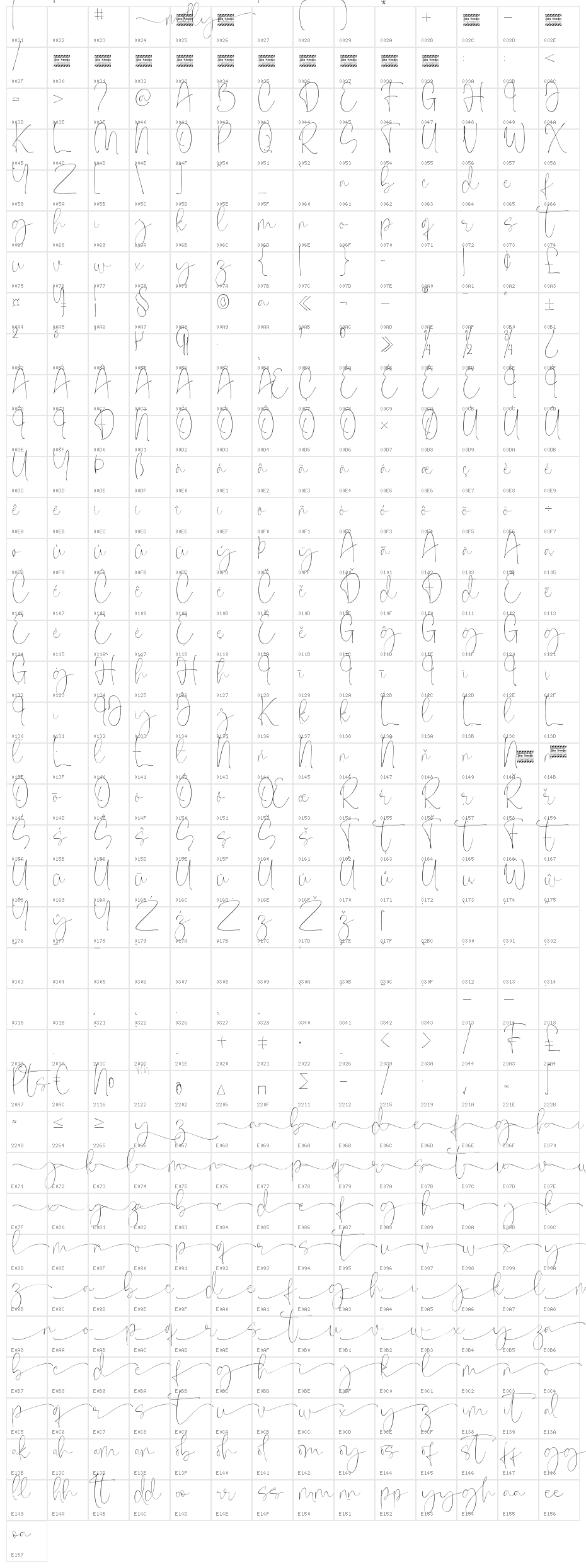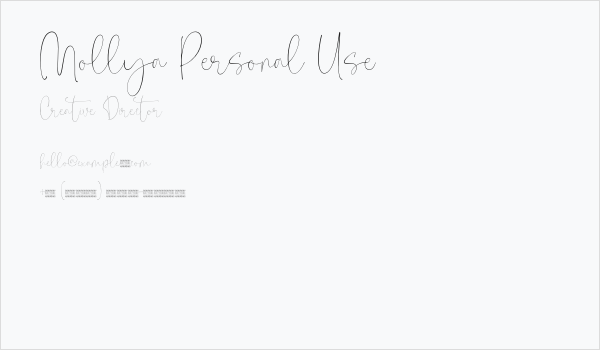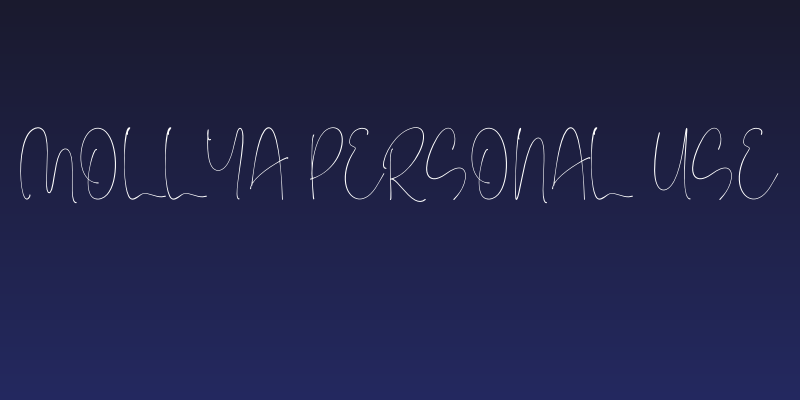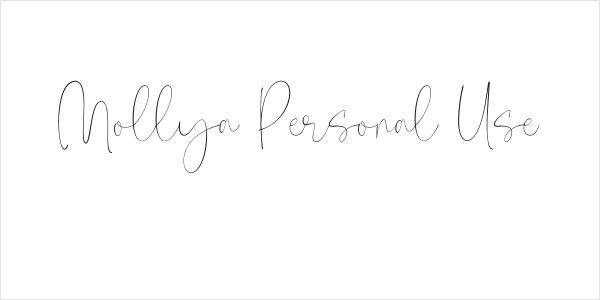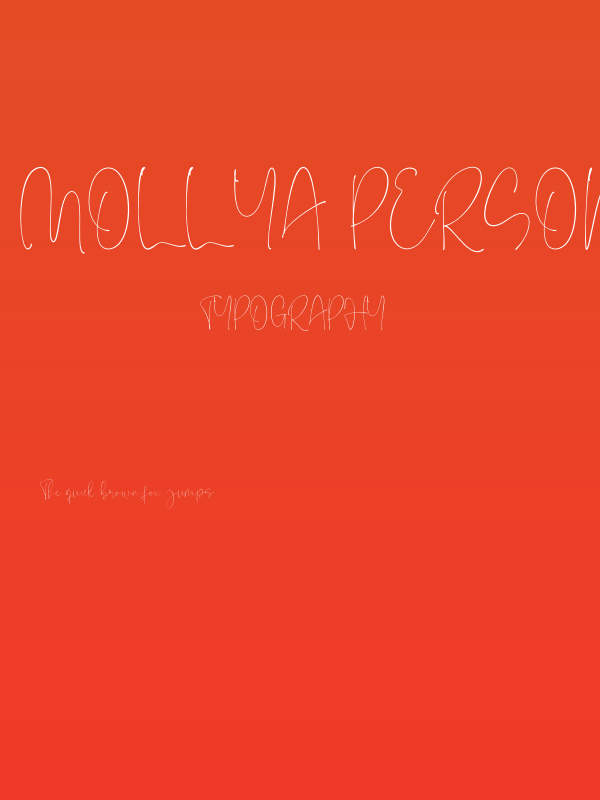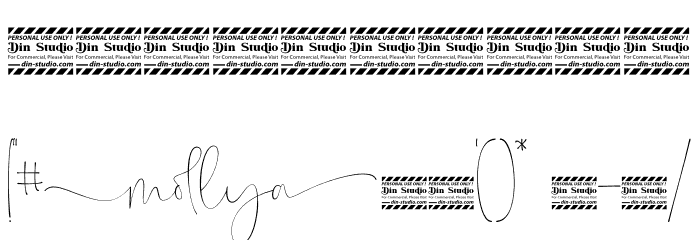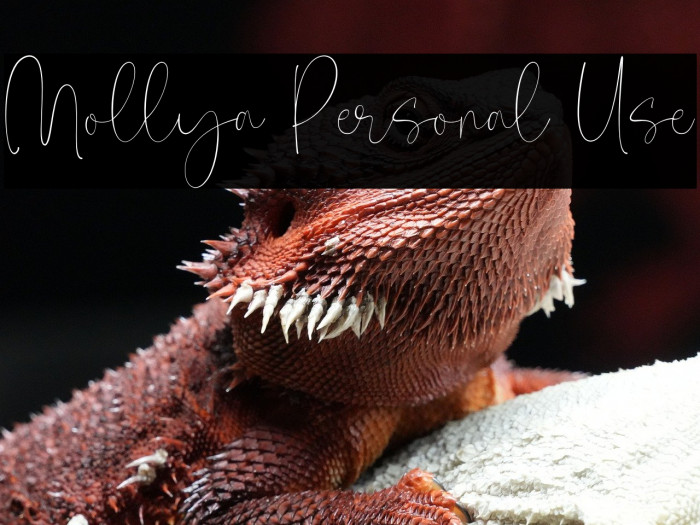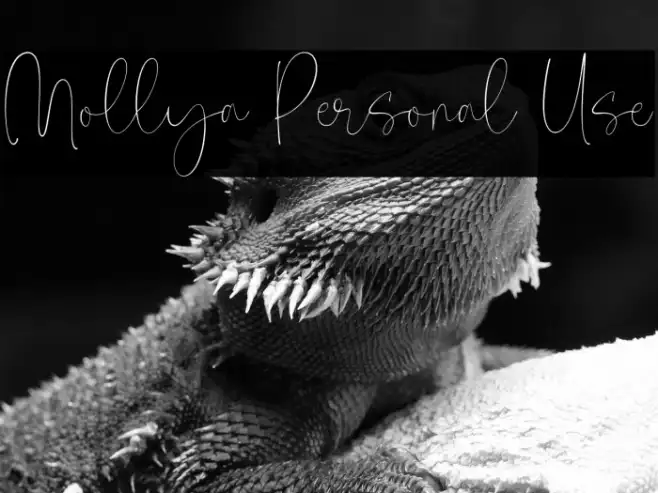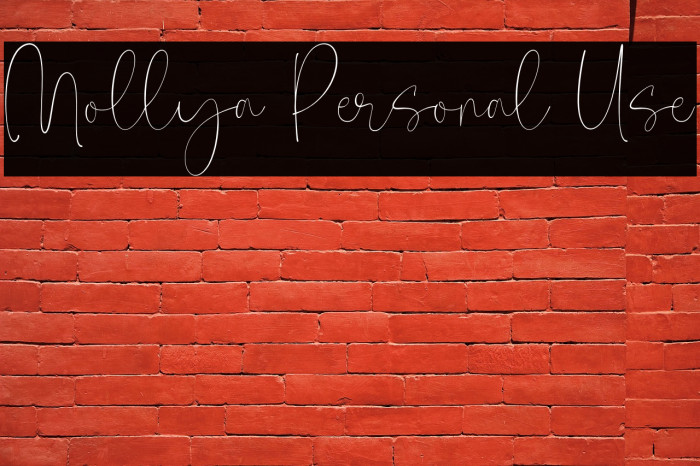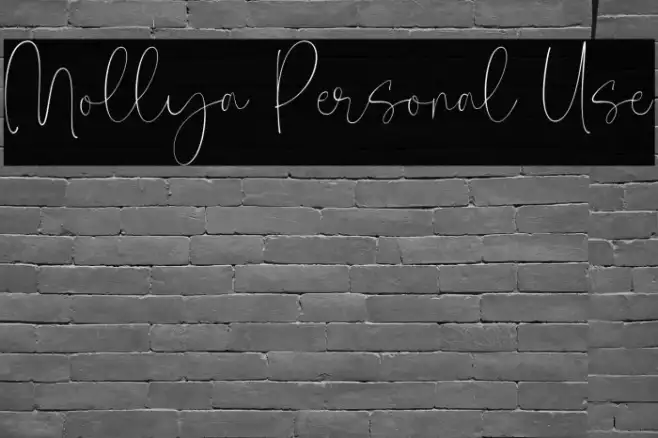
Mollya Personal Use Font
Mollya Personal Use Description
This font features an elegant and flowing script style, characterized by its thin, delicate strokes and graceful curves. The uppercase letters are tall and slightly slanted, giving a sense of sophistication and fluidity. The lowercase letters are more intricate, with some letters featuring extended loops and flourishes that add a decorative touch. The numbers and special characters maintain the same elegant style, ensuring consistency throughout. This font's overall appearance is both modern and timeless, making it suitable for a variety of design projects.
| Use Case | Logos, Invitations, Branding |
| Proposed Projects | Ideal for wedding invitations, branding, logo design, and elegant stationery. |